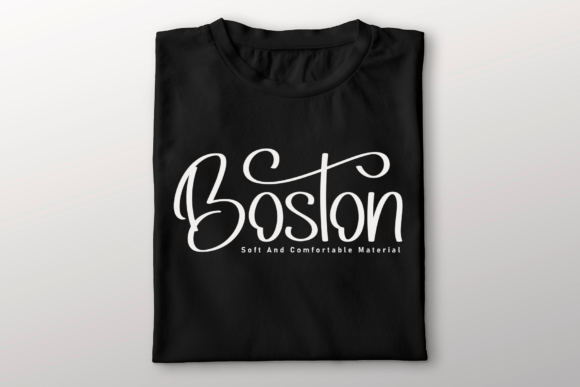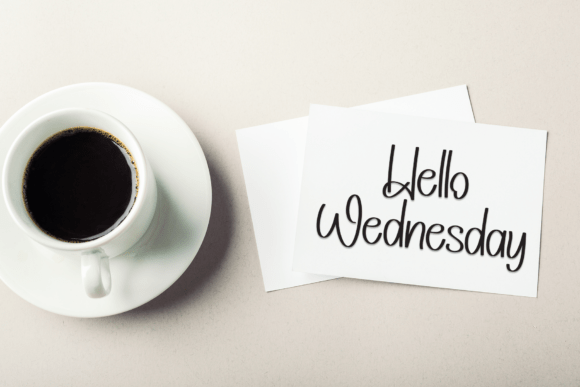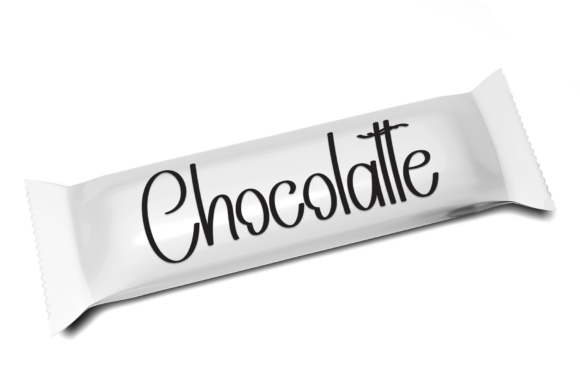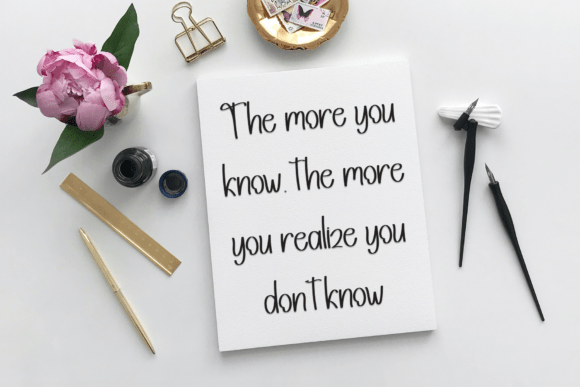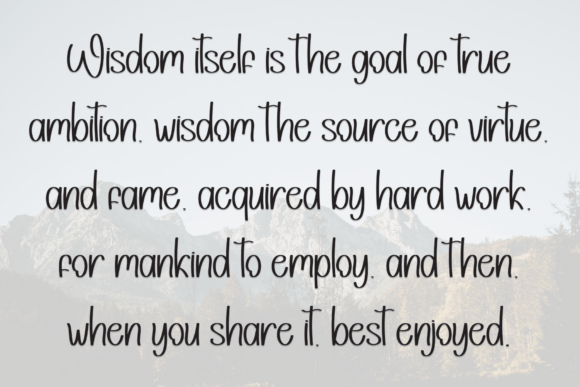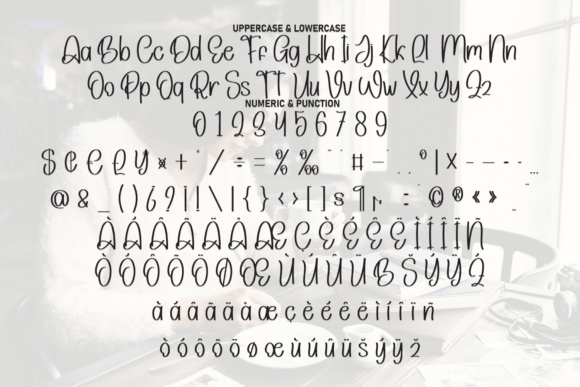
Introducing Beautiful Writer Font: The Perfect Addition to Your Design Arsenal
Are you tired of using the same old fonts for your creative projects? Look no further! Beautiful Writer Font is a stunning display font that exudes fun, relaxation, and a carefree spirit. With its clean lines and effortless vibe, this font is ideal for designers and crafters seeking to add a touch of playfulness to their work.
The Perfect Font for Summer-Inspired Designs
Beautiful Writer Font is specifically designed to evoke the feeling of a warm summer breeze. Its casual and laid-back demeanor makes it perfect for creating eye-catching summer posters, event flyers, and playful branding materials. Whether you’re designing a brochure for a summer sale, a flyer for a music festival, or a social media post for a beachwear brand, this font is sure to bring a smile to your audience’s faces.
Key Features of Beautiful Writer Font
- Clean Lines: Beautiful Writer Font boasts clean and crisp lines that give it a fresh and modern look.
- Easygoing Vibe: The font’s carefree and relaxed demeanor makes it perfect for designs that require a playful touch.
- Display Font: As a display font, Beautiful Writer is designed to make a statement and grab attention.
- Versatile: This font can be used for a wide range of creative projects, from posters and flyers to branding and social media graphics.
Why Designers and Crafters Love Beautiful Writer Font
Beautiful Writer Font has quickly become a favorite among designers and crafters due to its unique combination of style and versatility. Here are just a few reasons why:
- Instant Recognition: The font’s distinctive look and feel make it instantly recognizable, adding a touch of personality to any design.
- Easy to Read: Despite its playful nature, Beautiful Writer Font is surprisingly easy to read, making it perfect for designs that require a clear message.
- Customizable: As a digital font, Beautiful Writer can be easily customized to fit your design needs, from adjusting the size and color to experimenting with different textures and overlays.
Tips for Using Beautiful Writer Font in Your Designs
To get the most out of Beautiful Writer Font, here are a few tips to keep in mind:
- Pair it with Bold Colors: Beautiful Writer Font looks amazing when paired with bold, bright colors that match its playful vibe.
- Experiment with Textures: Add an extra layer of depth to your design by experimenting with different textures and overlays.
- Use it for Headlines: As a display font, Beautiful Writer is perfect for grabbing attention with headlines and titles.